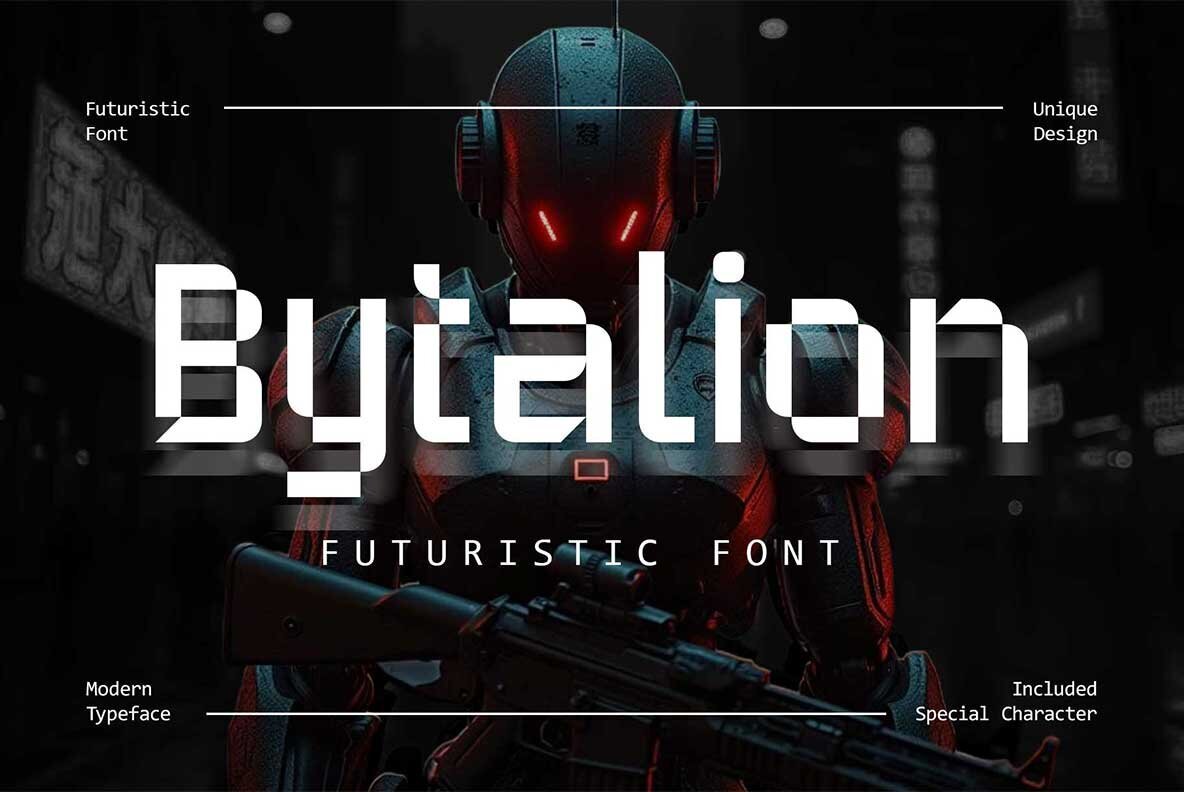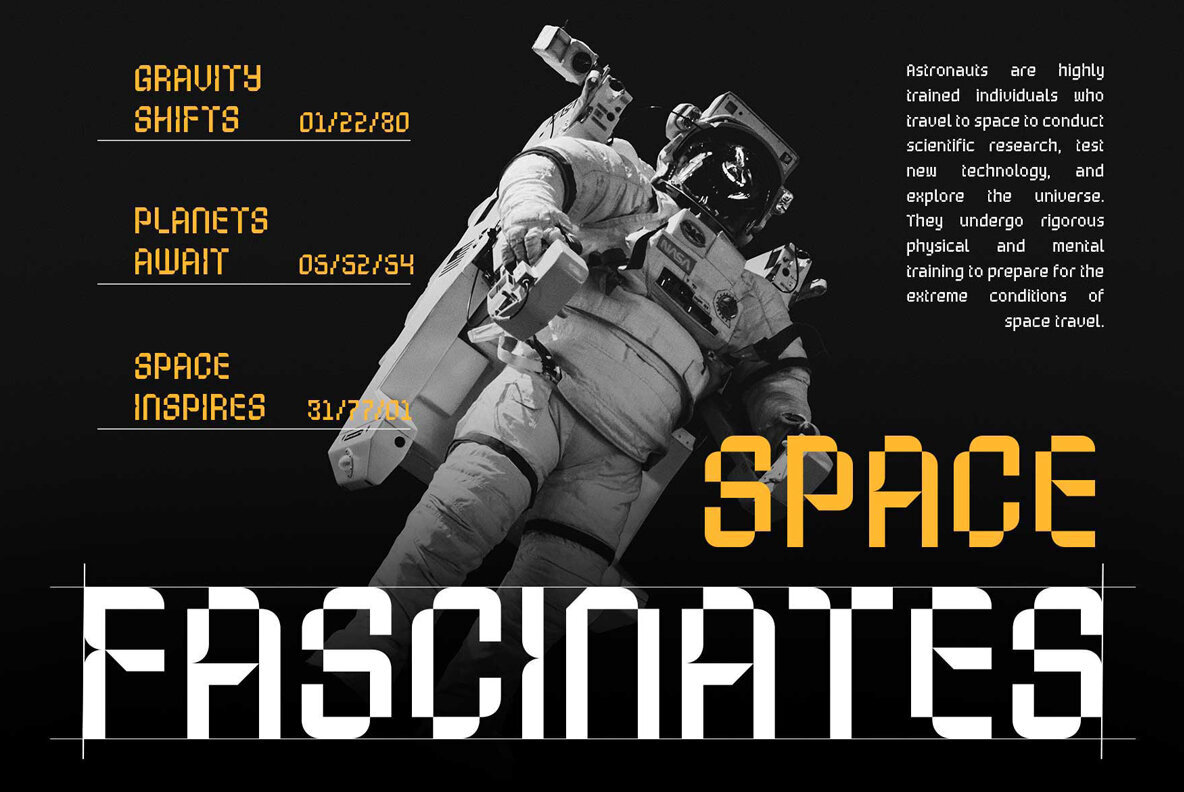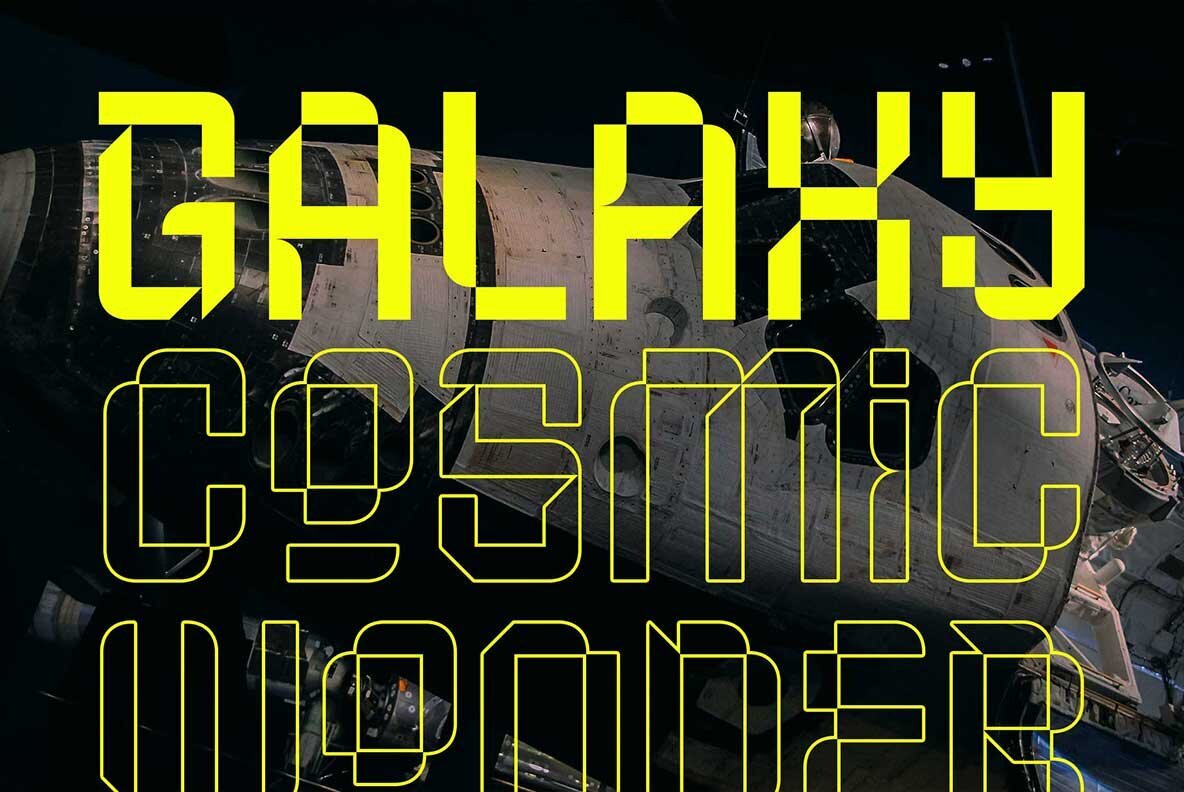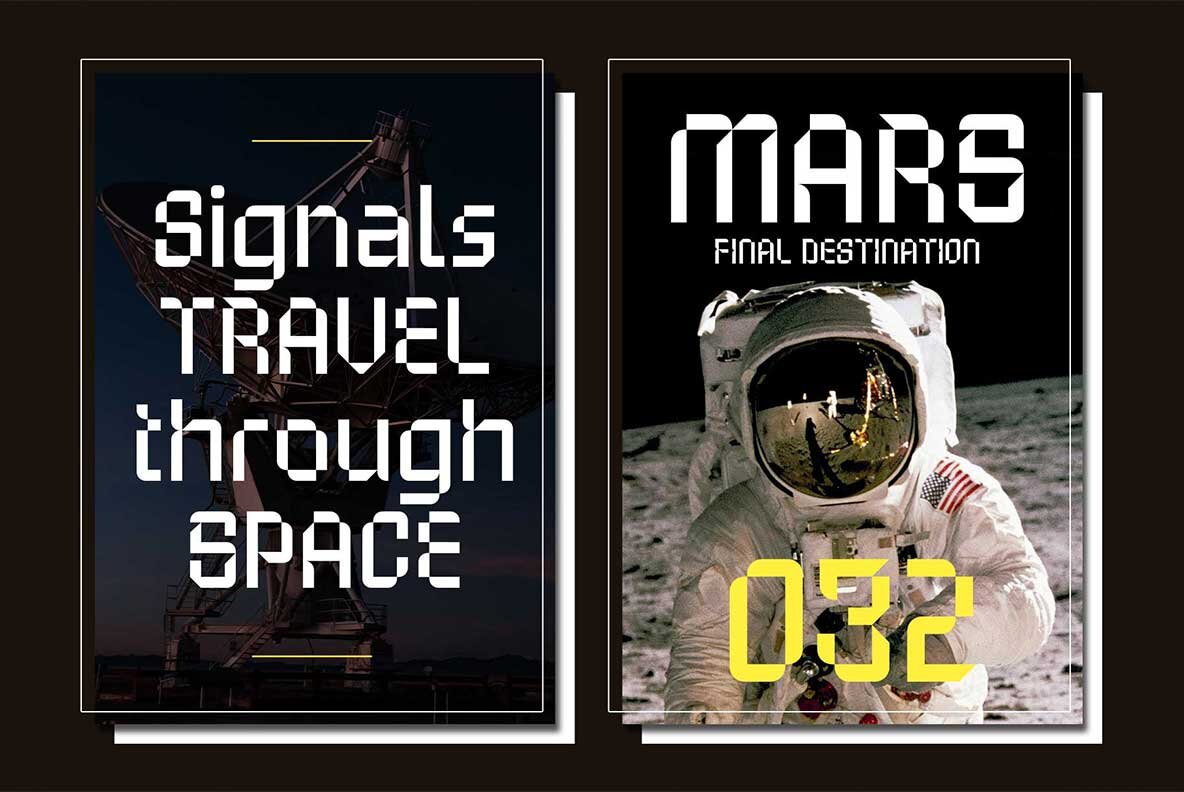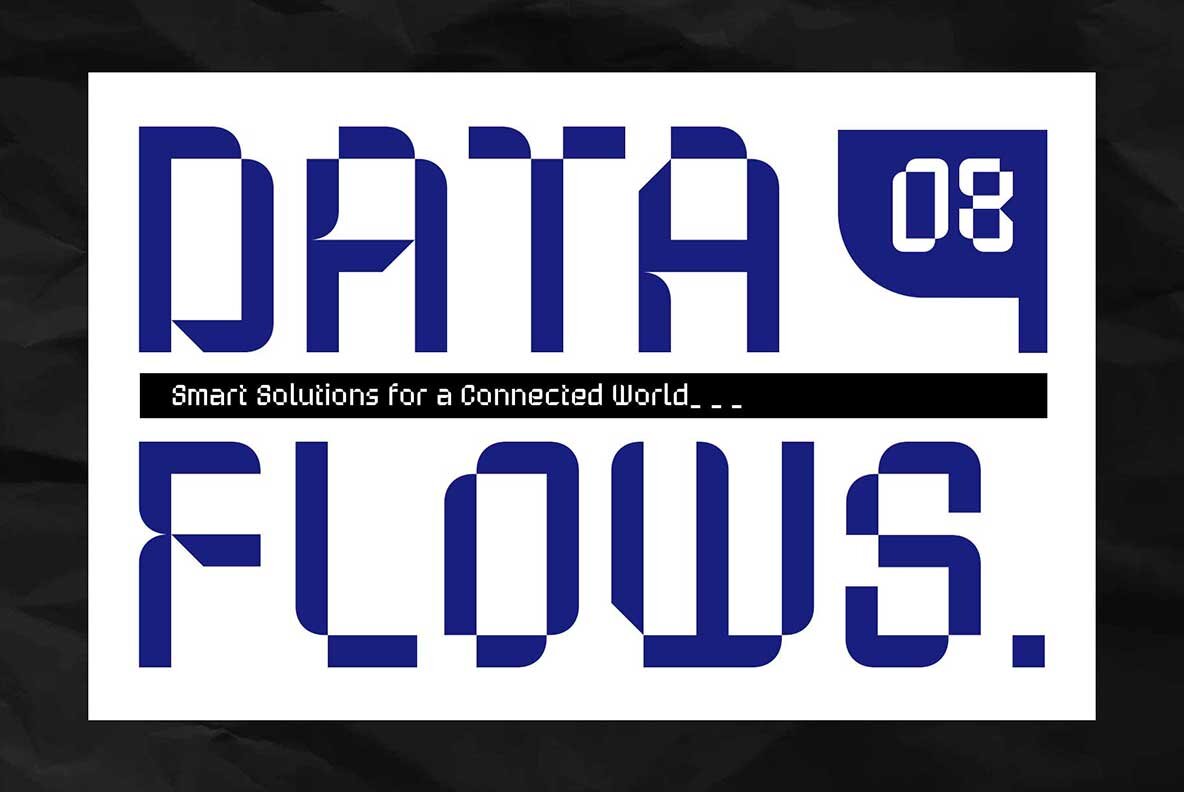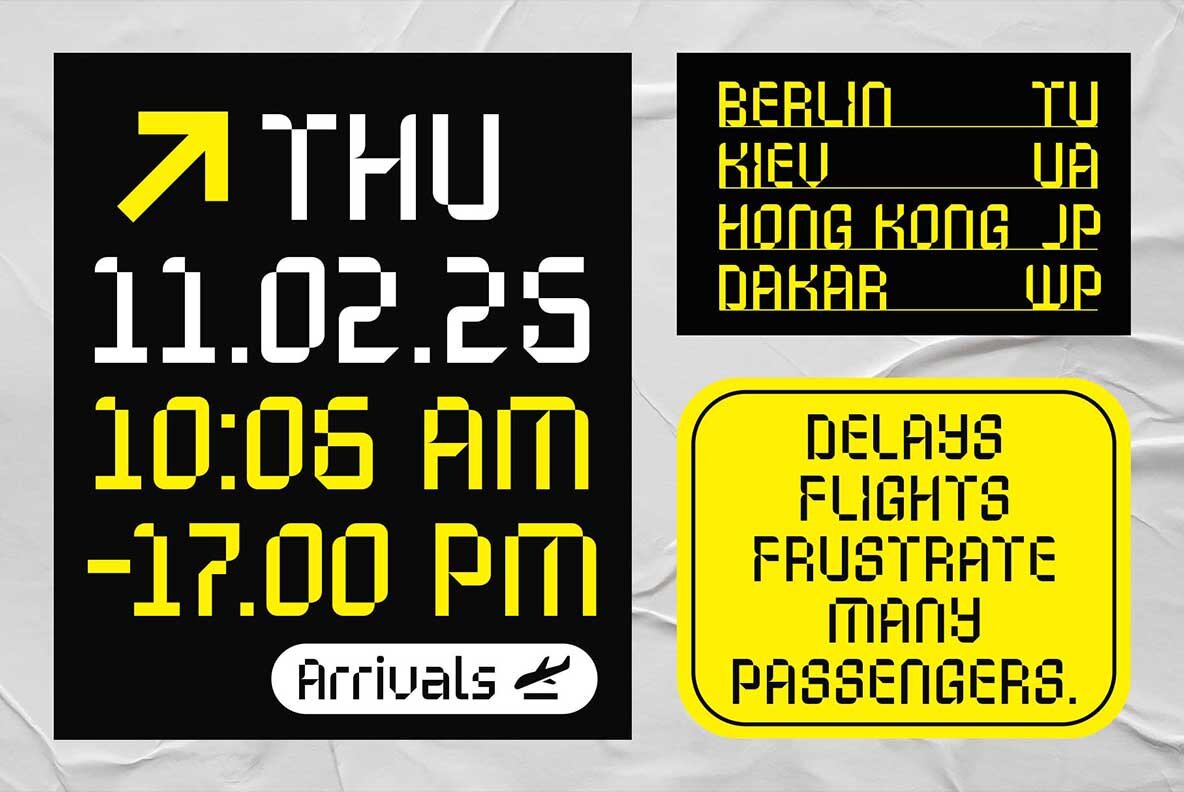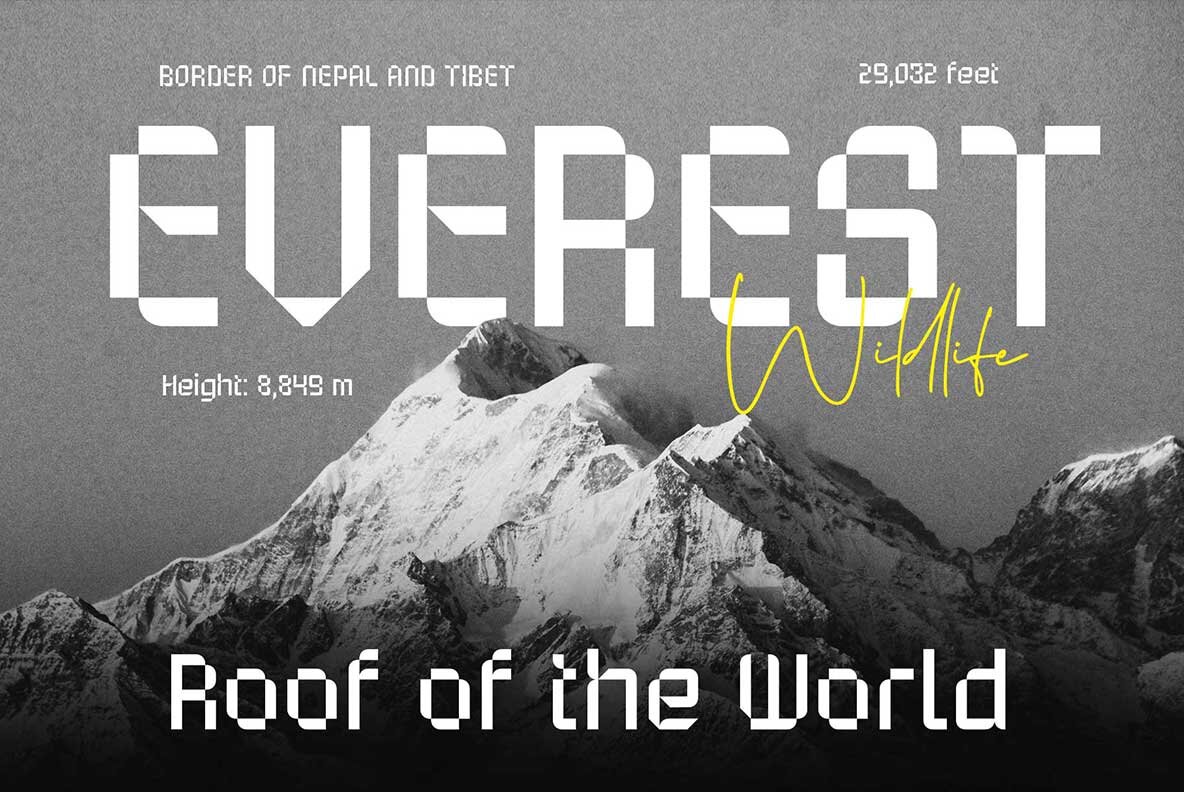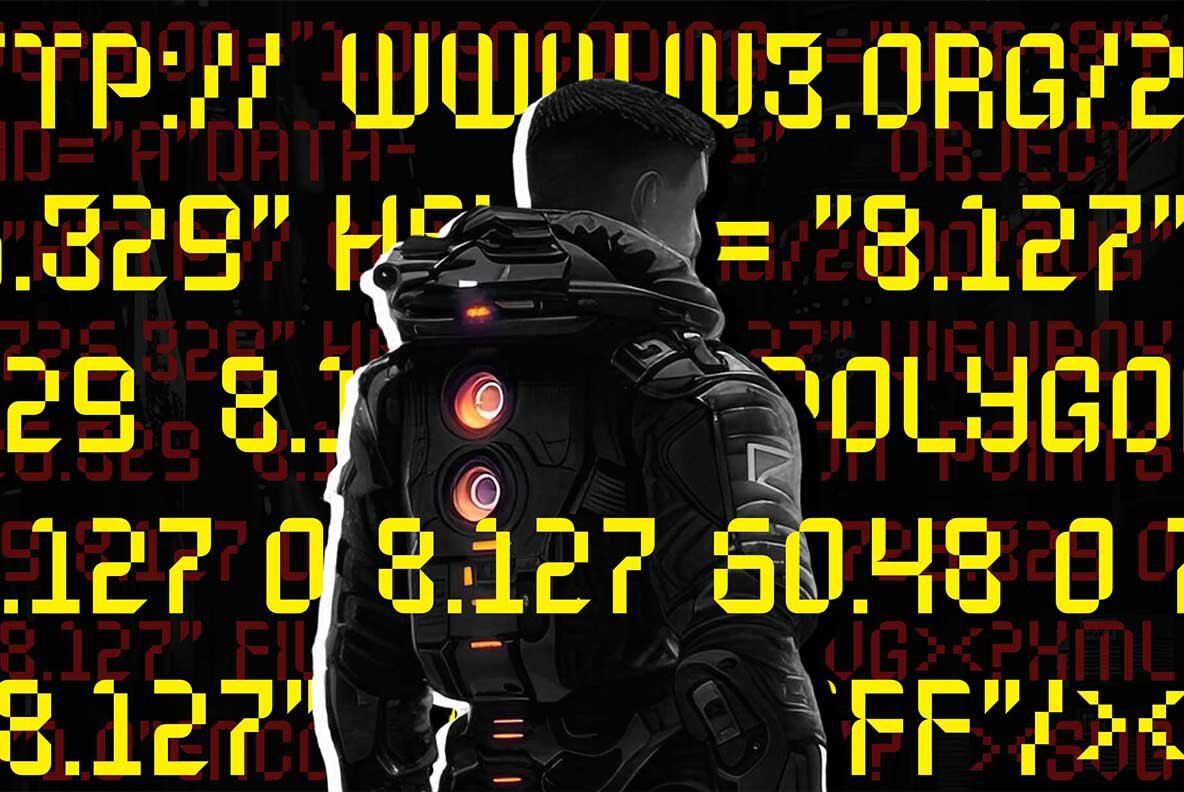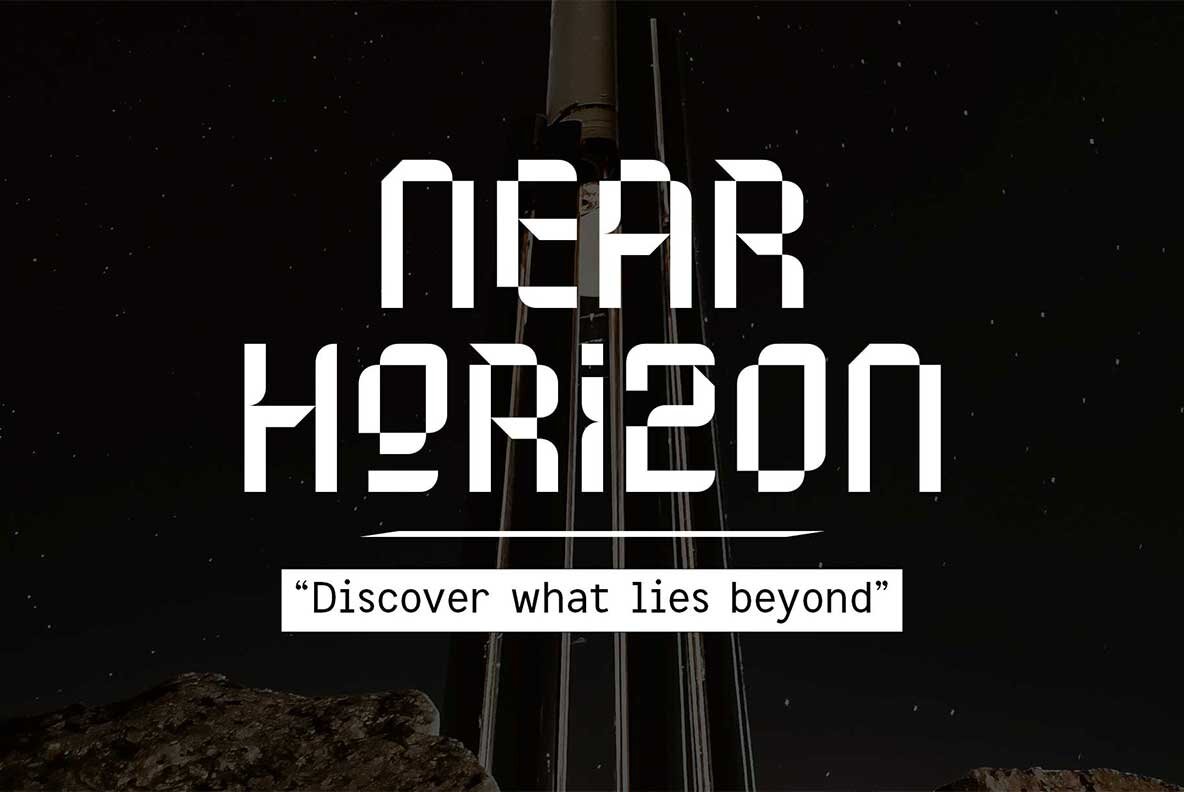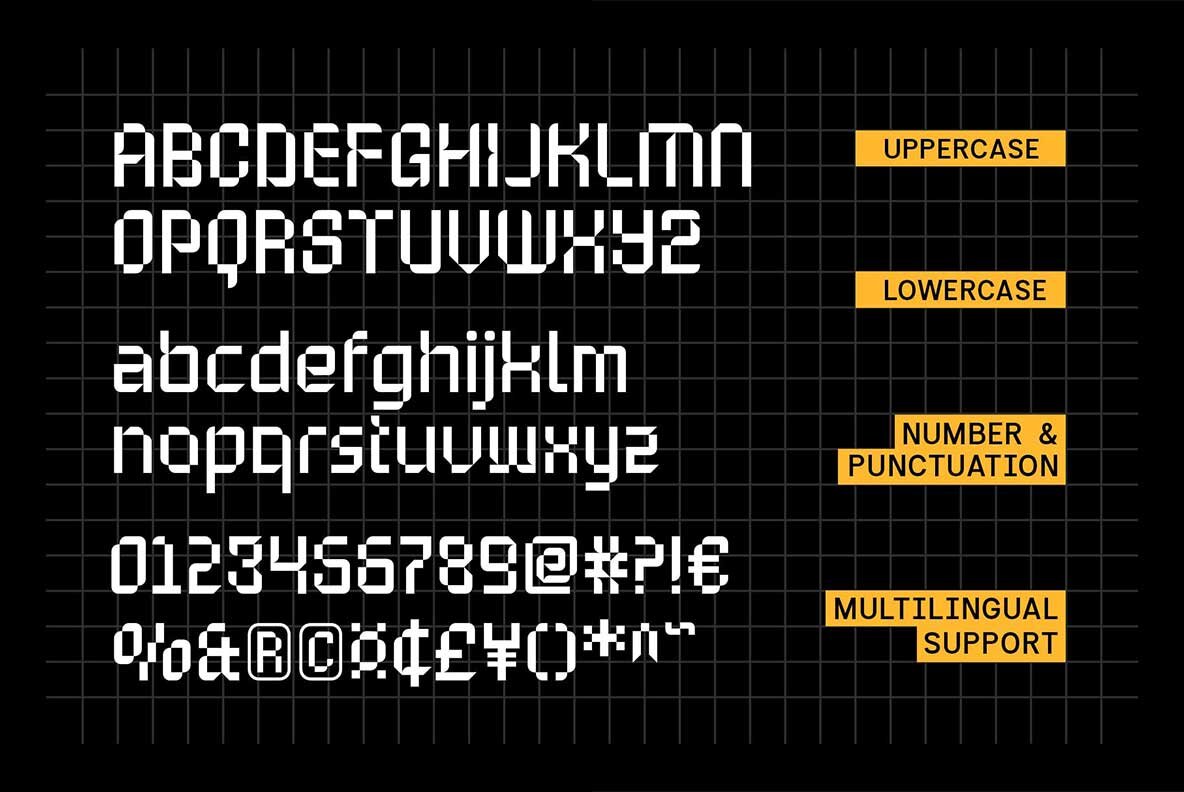
Bytalion Font
Bytalion Regular
Bytalion is a futuristic font distinguished by its unique geometric design. It seamlessly combines rectangular and curvy shapes, offering a sci-fi aesthetic reminiscent of modern cinematic journeys. This font encapsulates modernism, technology, and minimalism, making it an excellent choice for those looking to invoke a futuristic vibe.
The font comes with stylistic alternates, enhancing its versatility across various projects. Bytalion is perfectly suited for posters, movie titles, book covers, motion graphics, branding, and logos—any creative endeavor where a futuristic impression is desired.